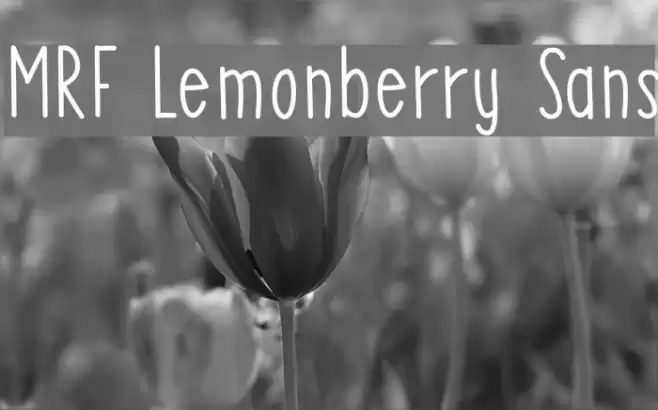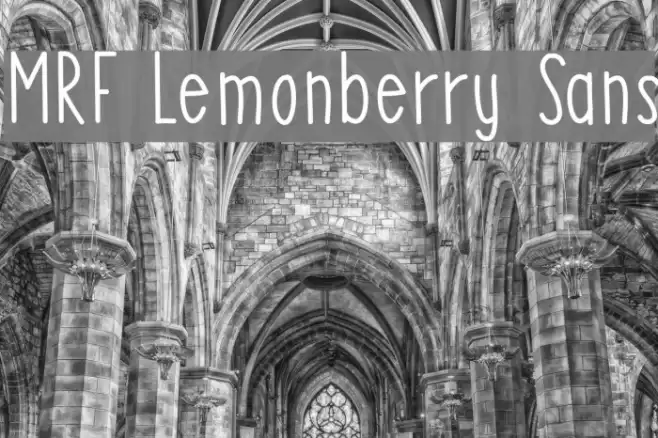
MRF Lemonberry Sans Font
MRF Lemonberry Sans Description
This font features a playful and whimsical design with a handwritten style. The characters are tall and narrow, giving it a unique and friendly appearance. The strokes are consistent in width, providing a clean and modern look. The uppercase letters are slightly taller than the lowercase, maintaining a balanced and harmonious feel. The numbers and special characters are designed to match the overall style, ensuring a cohesive appearance across all text. This font is perfect for projects that require a touch of personality and charm.
A playful, handwritten font with tall, narrow characters and a whimsical style from Handwritten fonts.
- Proposed Projects: Ideal for children's books, greeting cards, playful branding, and social media graphics.
- Width: Condensed
- Overall Style: Playful, Whimsical
- Use Case: Headlines, Logos, Informal Text